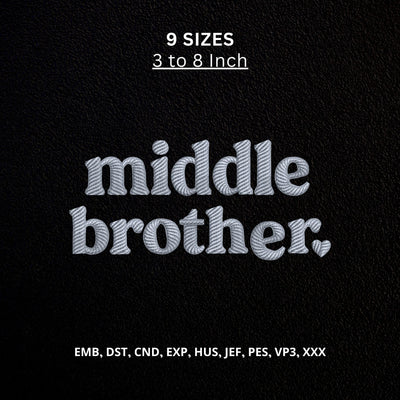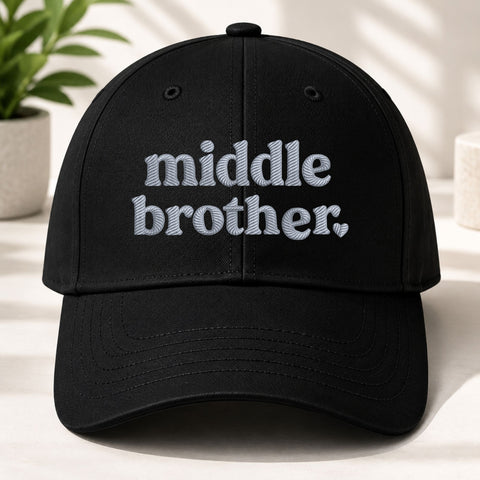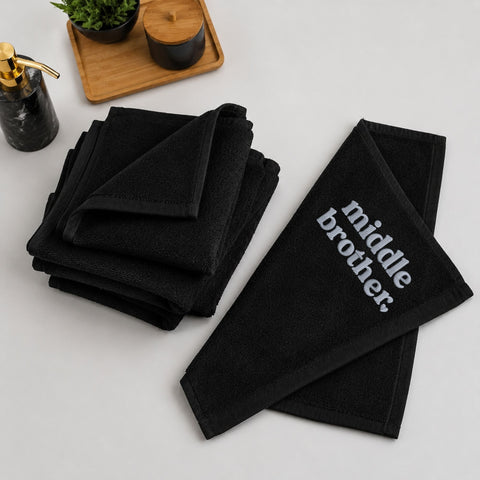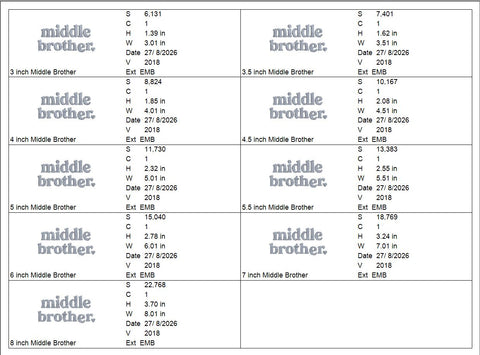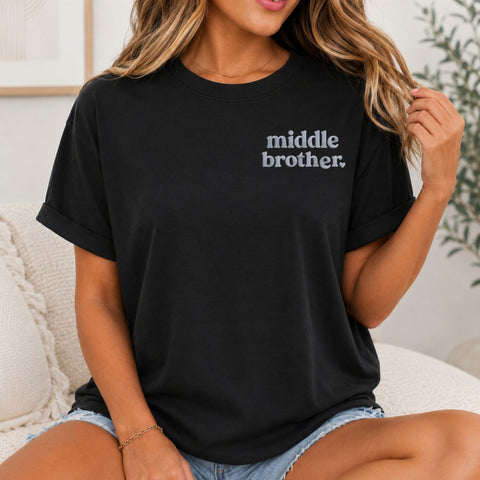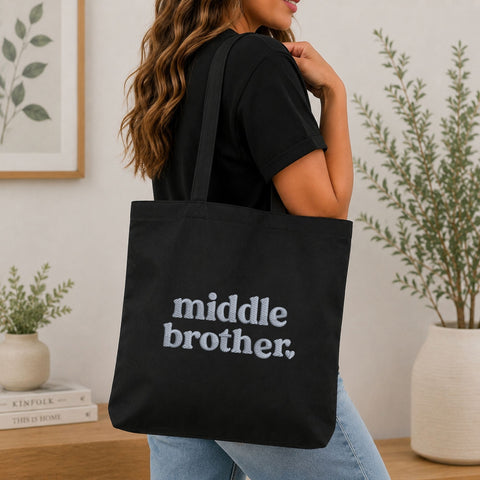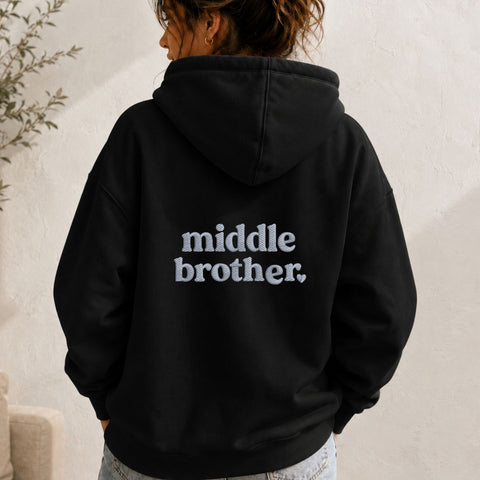
Middle Brother Machine Embroidery Design – Cute Sibling Boy Embroidery File
Celebrate the special middle sibling with this cute “Middle Brother” machine embroidery design, featuring bold lowercase typography and a sweet heart accent. Perfect for boys, toddlers, kids, sibling announcements, and matching family outfits, this design is ideal for T-shirts, sweatshirts, baby clothes, tote bags, and personalized middle brother gifts.